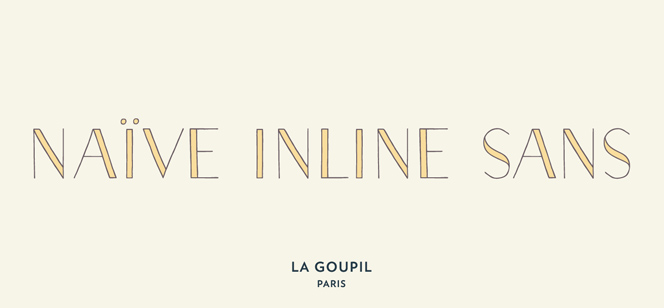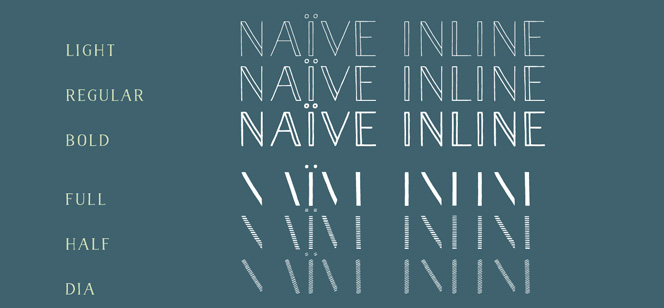
Naive Inline Sans
Naive Inline Sans font is a hot new multilayer family. Designed only with capital letters Naive Inline Sans has much of the character and friendliness most of the designers often need to implement in their work. The family has 3 open face weights and other 3 texture fonts to blend with them in different combinations. The whole family has vintage look and all three main fonts could be use solely without the company of additional font layers. Naive Inline Sans is excellent for retro headlines, food brands, cigar and tea packages, typographic posters, vintage t-shirt designs and with some extra efforts this font could be used for logo designs. Classic proportions and simple geometry make this family easy-to-read no matter where it is used – for print or screen graphics. Another great advantage is the multilayer design allowing you to create many combinations between different styles and weights and thus to make a diverse stylish design.